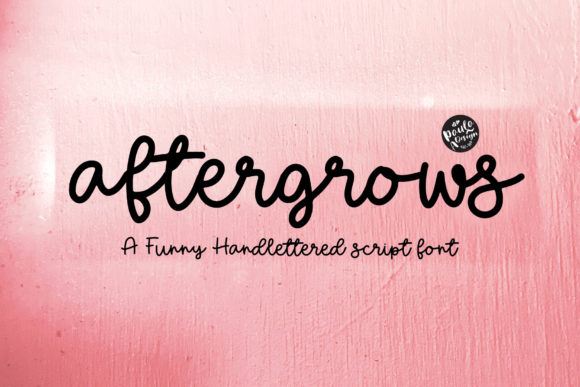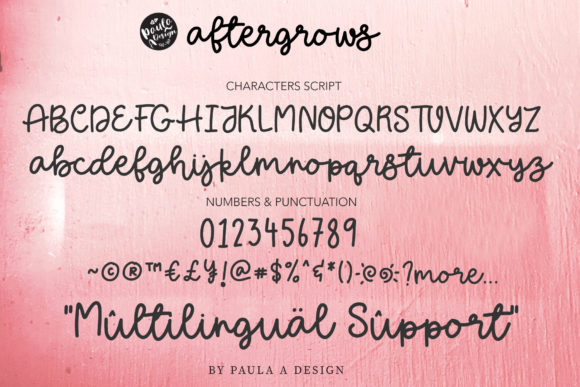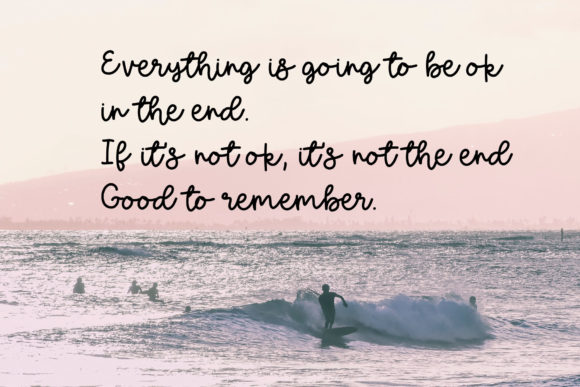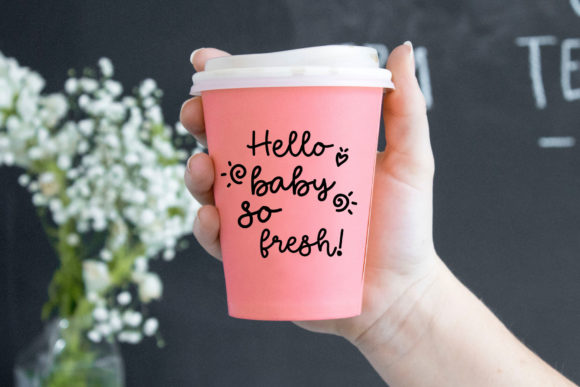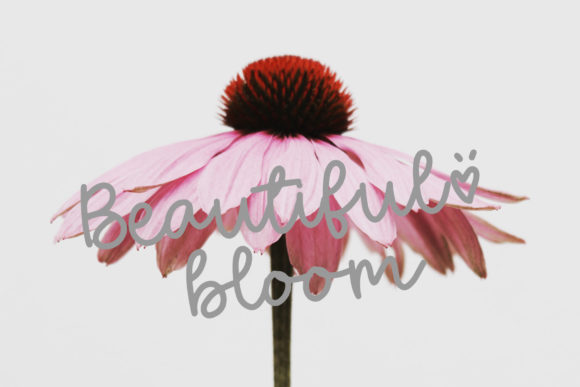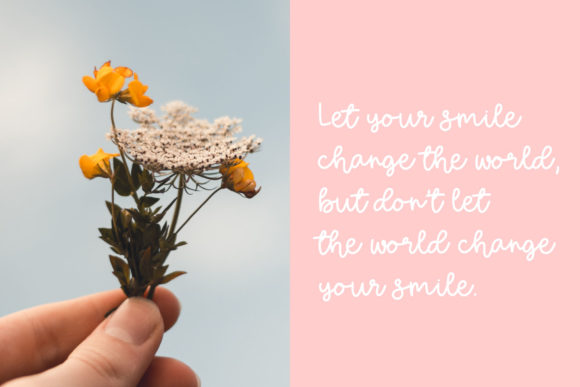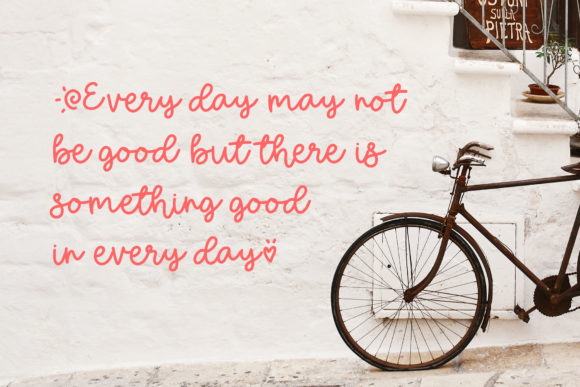
Aftergrows Font
About Aftergrows Font
The Aftergrows is a chic brush font, perfect for high impact headlines. Every single letter has been carefully created and is perfect for adding a playful touch to your designs.
It can be used for invitations, branding, logos, blog’s, and every other design which needs a beautiful touch.